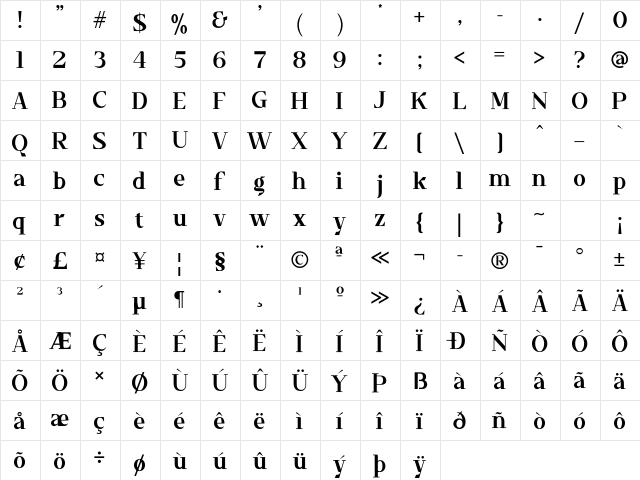
Timeline Regular
| Foundry | Kong Font |
| Designer | Kong Font |
Design Context for Timeline Typeface
Timeline takes a measured approach to typography — its balanced proportions and neutral character make it a reliable workhorse for both digital and print work.